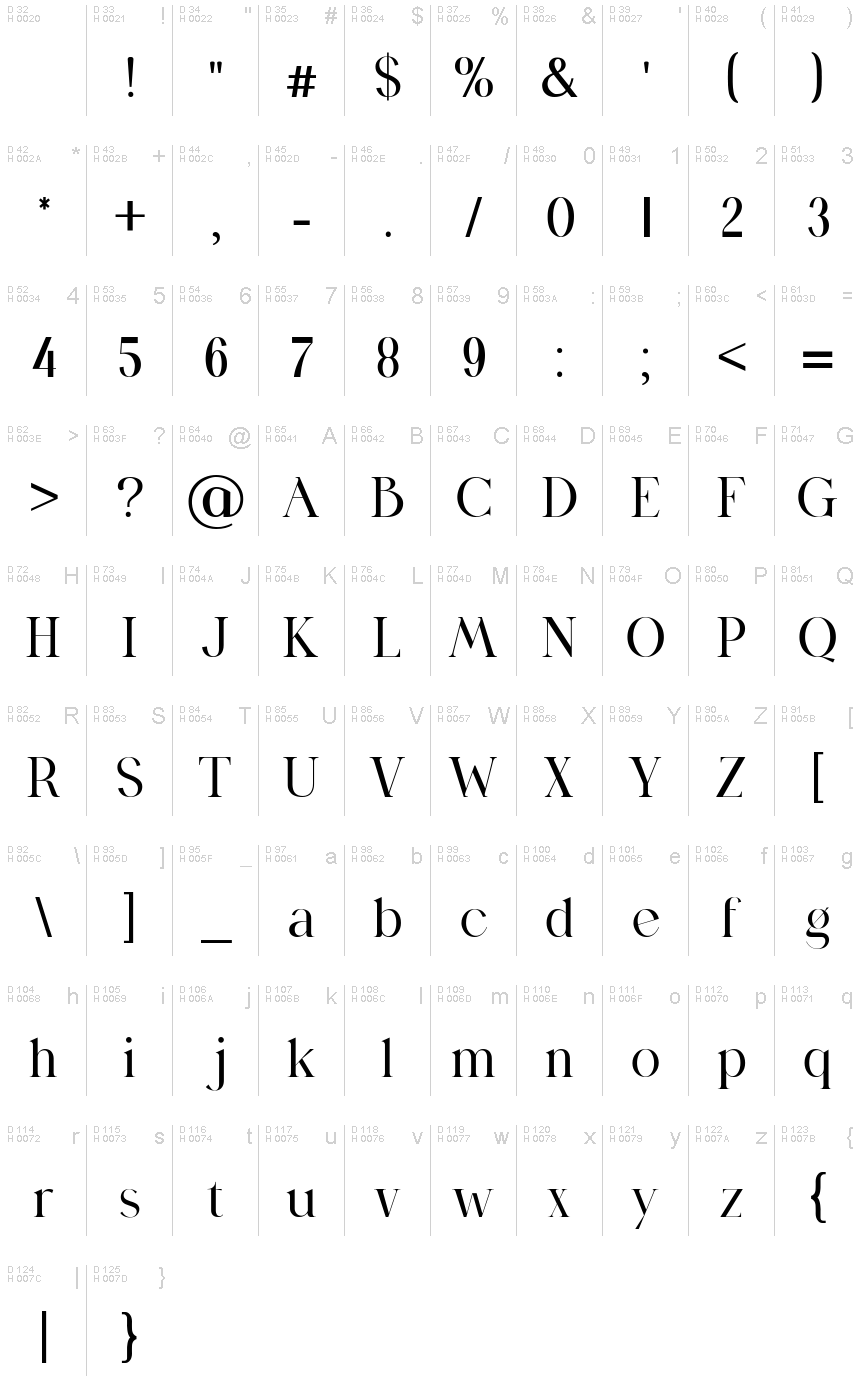
Birgine
Birgine, a captivating serif font crafted by UI Creative, exudes a timeless elegance with its refined, harmonious strokes. The font's classical structure is complemented by subtle, modern flourishes, creating a visually striking balance between tradition and innovation. Birgine's distinctive character and exceptional legibility make it a versatile choice for a wide array of design applications, from editorial layouts to high-end branding.
Birgine's versatility shines through its ability to convey a sense of sophistication and authority, making it an excellent selection for formal documents, prestigious publications, and upscale brand identities. Its legible, yet refined aesthetic also lends itself well to digital interfaces, ensuring a seamless user experience across various platforms.